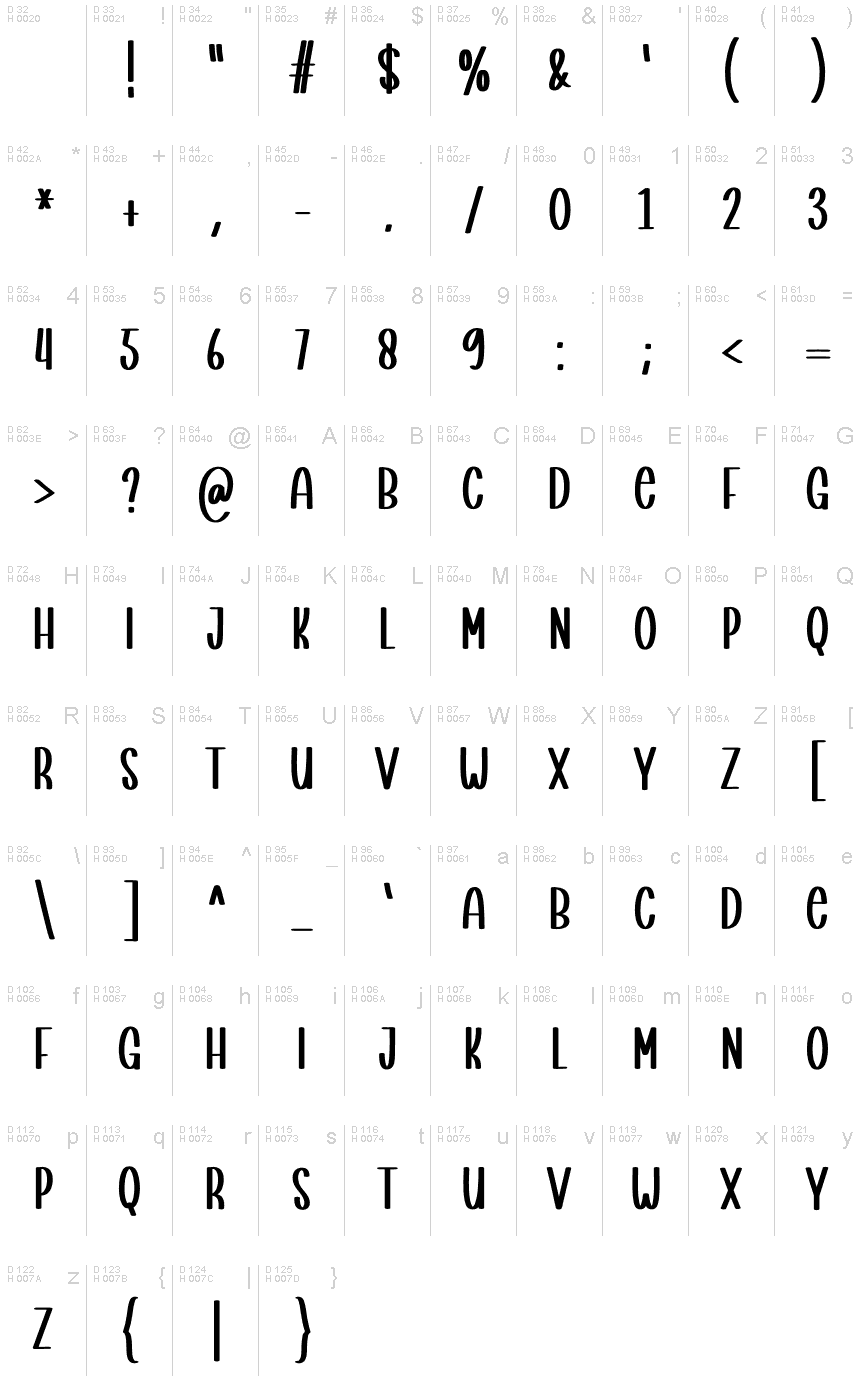
Staywork
Staywork, a captivating font designed by Scratchones, adds a touch of personality to any project. Its handwritten style brings a sense of warmth and authenticity, making it ideal for a variety of creative endeavors. With its condensed width, Staywork lends an air of sophistication and efficiency to your designs. The block letter form adds structure and clarity, while the all caps feature commands attention.
Whether you're working on logos, branding materials, or eye-catching headlines, Staywork will ensure that your message stands out with its unique blend of charm and professionalism.